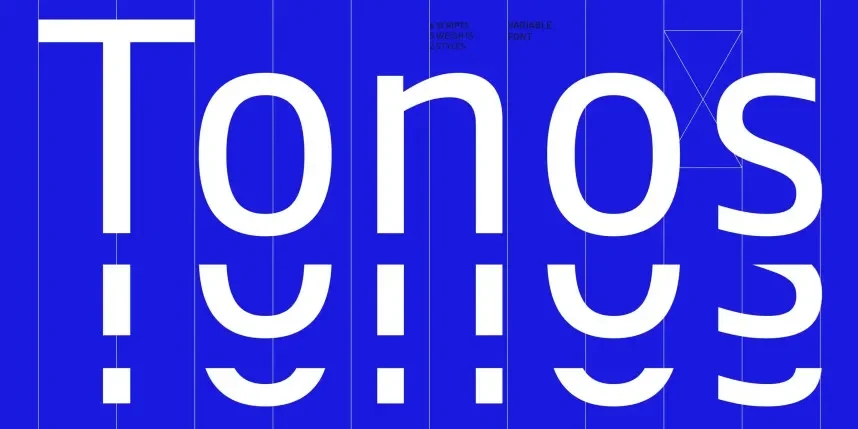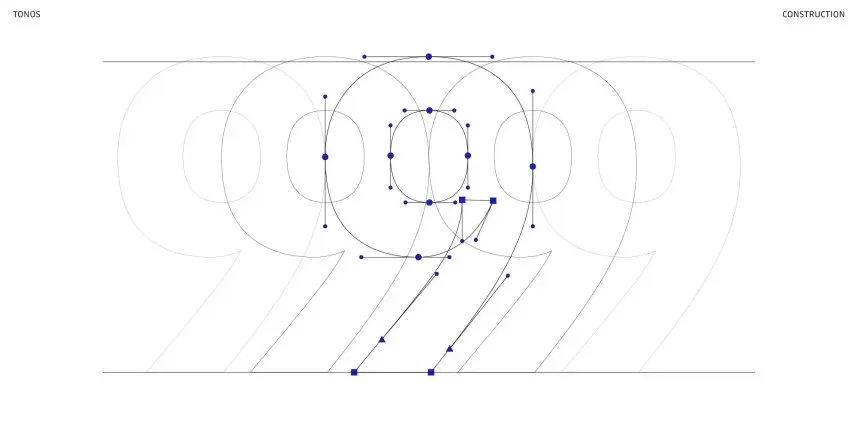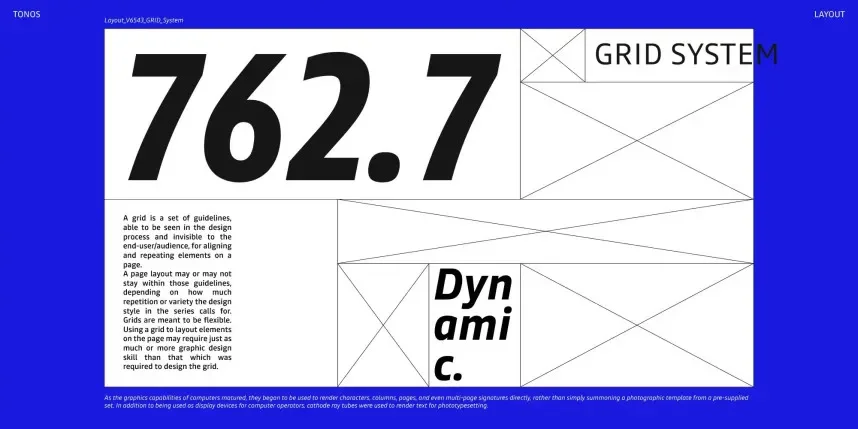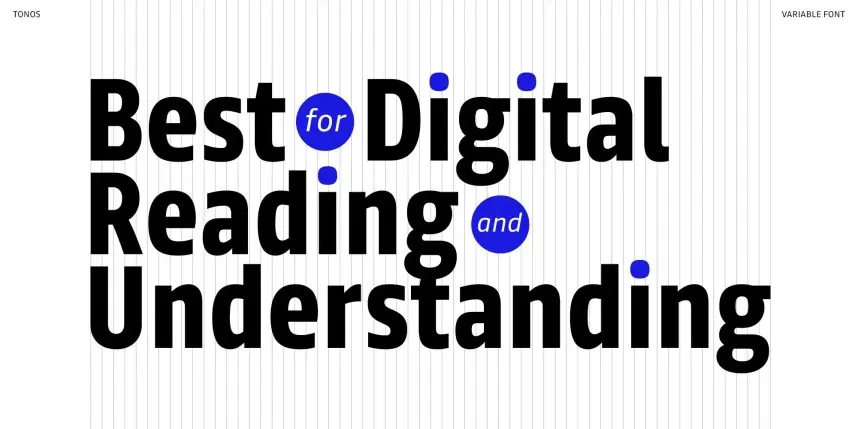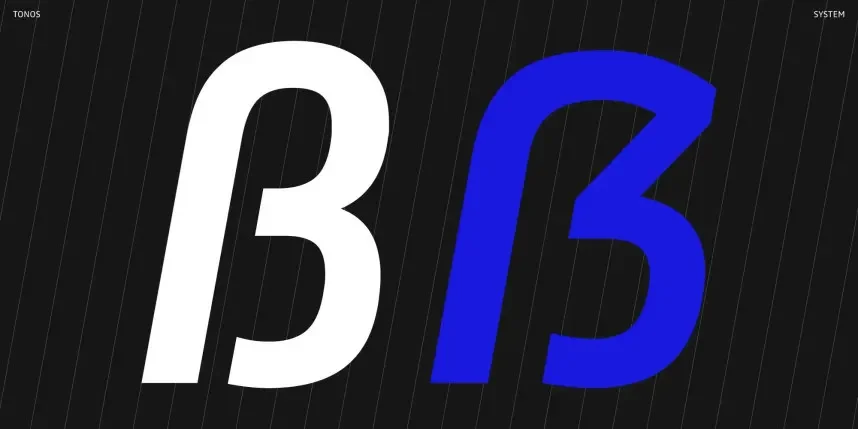
Tonos Font Family is a versatile sans-serif typeface family designed for both display and text use. With multiple weights, it can be used across various projects, from professional branding to digital interfaces, ensuring clarity and legibility at all sizes.